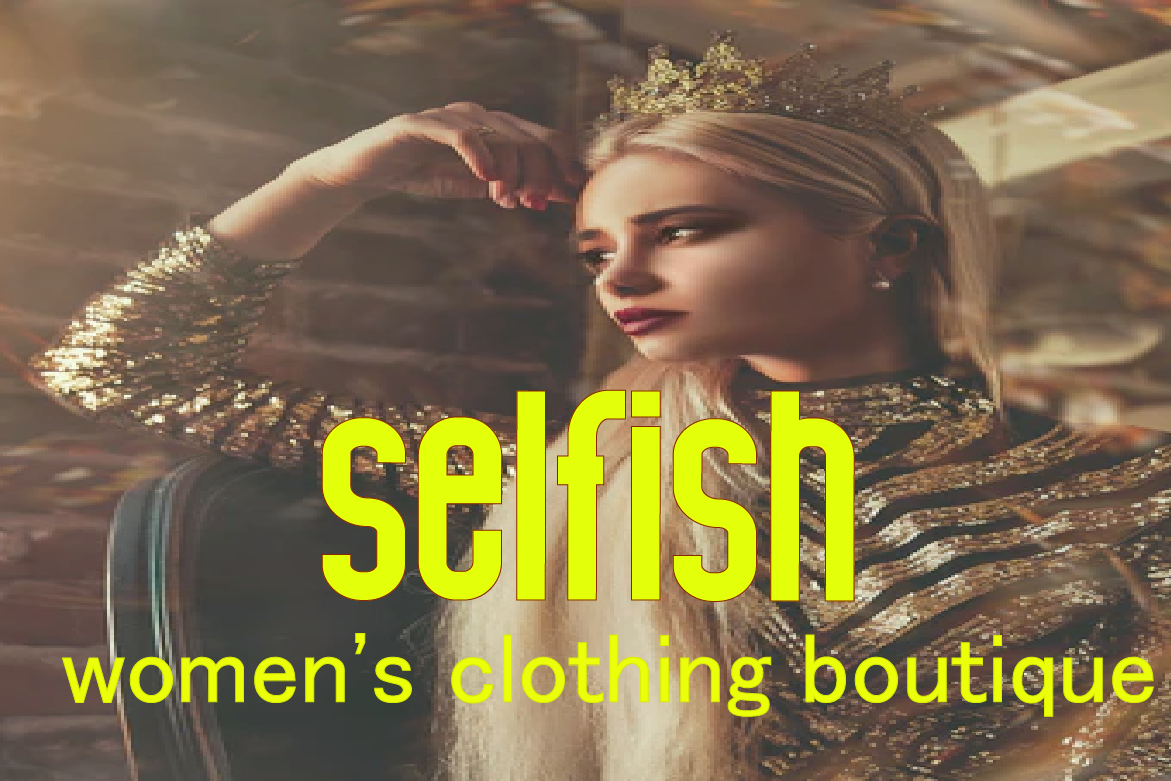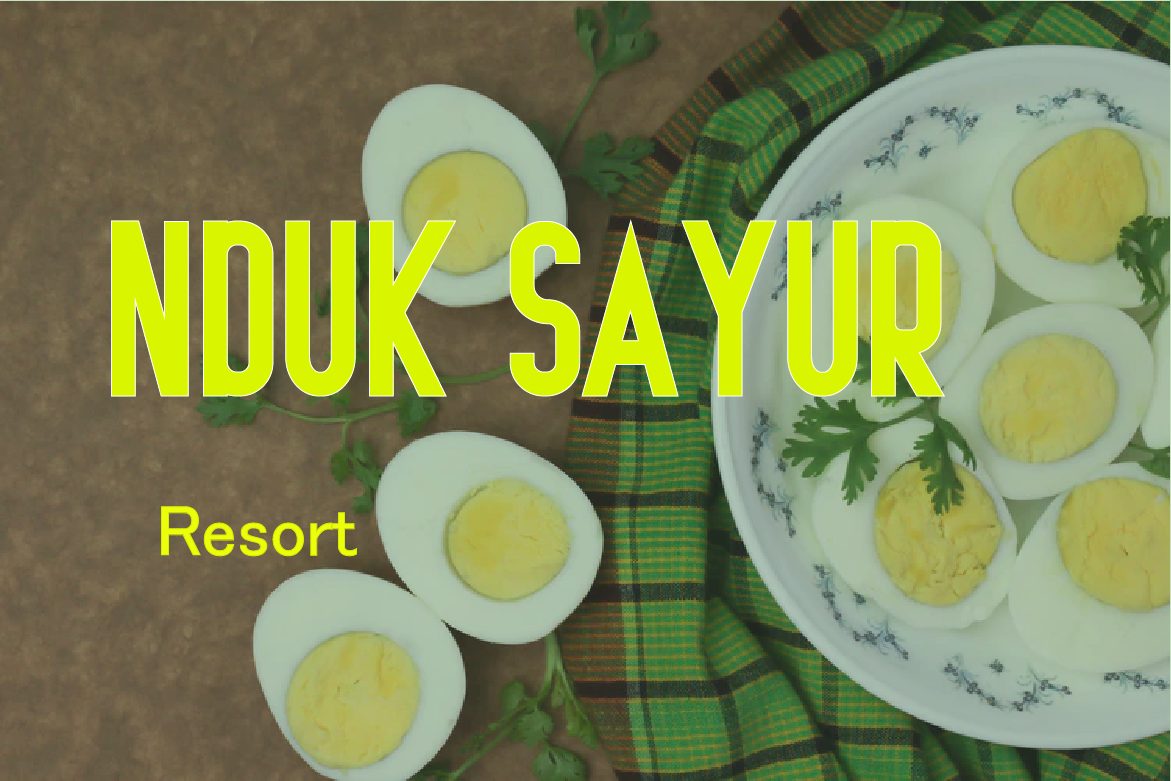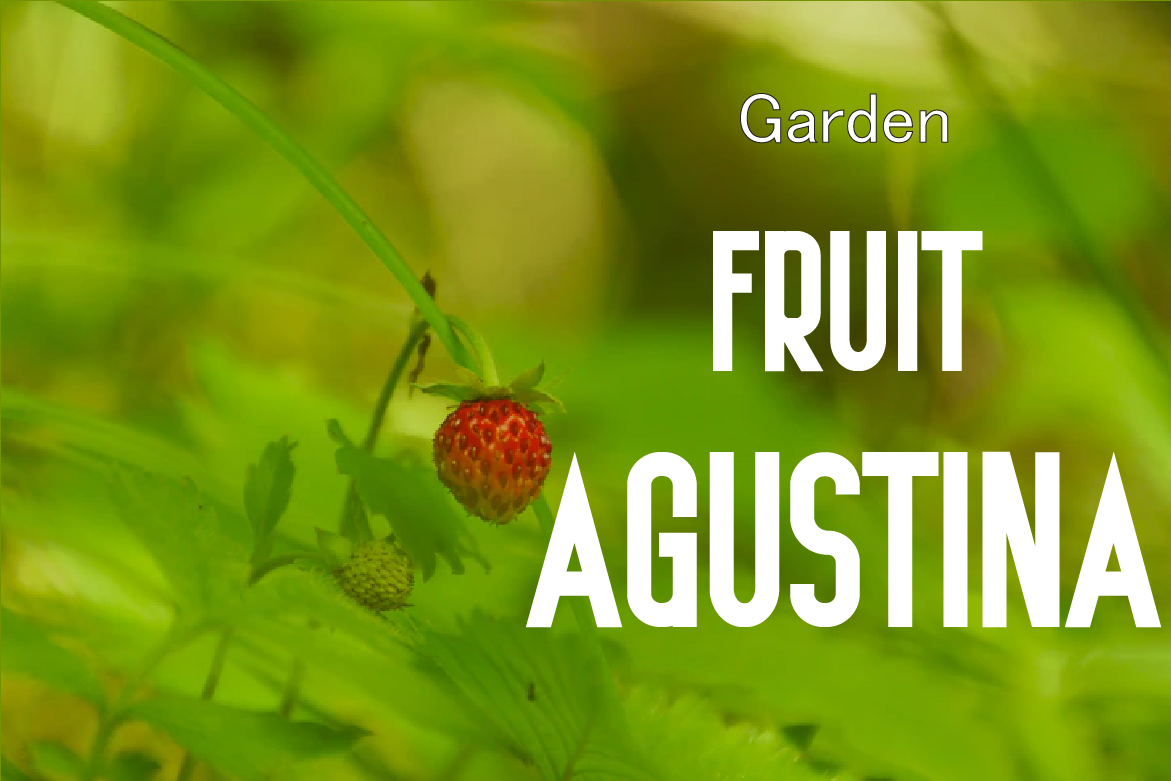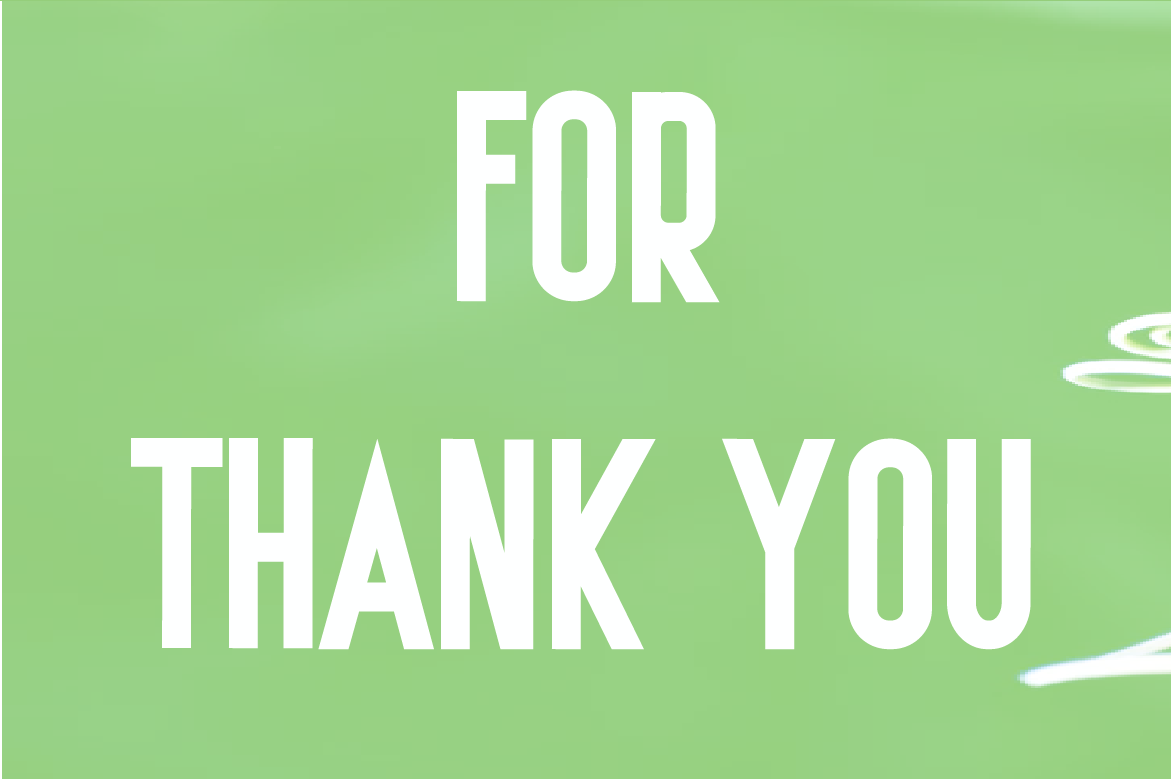
AYOPEGUY Font
AYOPEGUY Sans Serif Font
This is a powerful sans serif font, designed with a sturdy and firm shape and a balanced line.
Possible use: A health brand. An application.
A design agency. A sports brand. A food brand.
A technology company. A manufacturing factory.
A software developer.